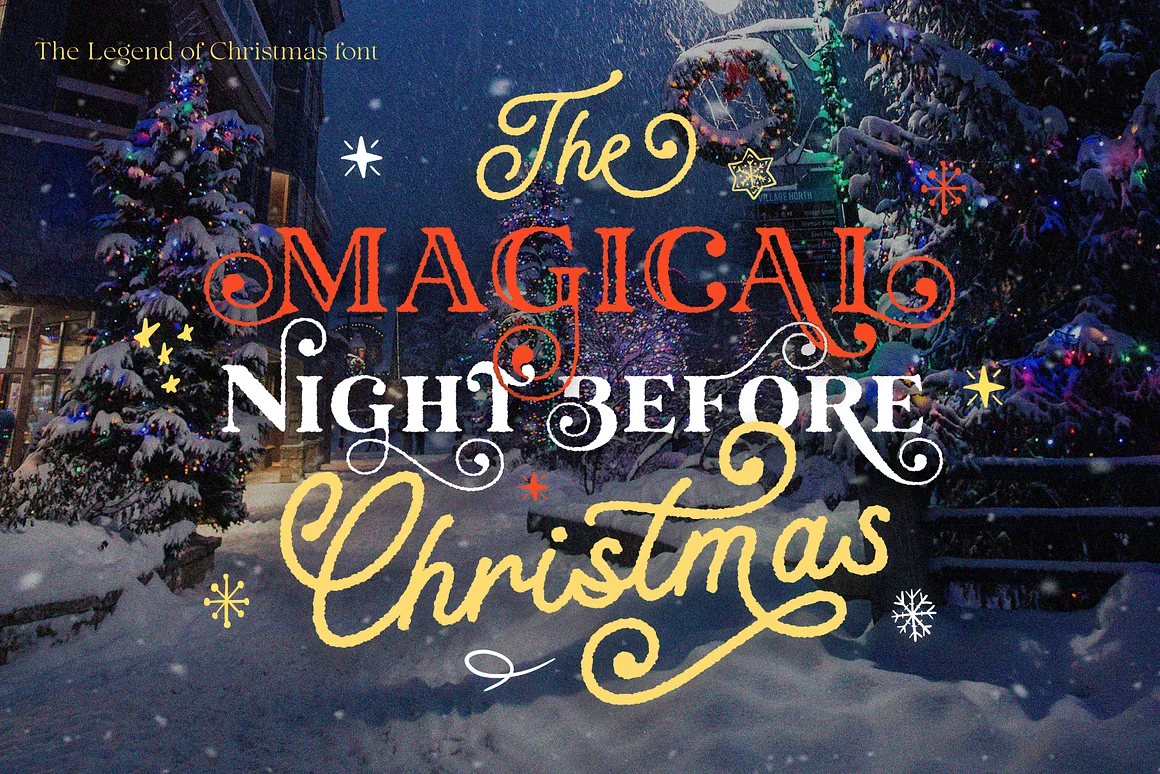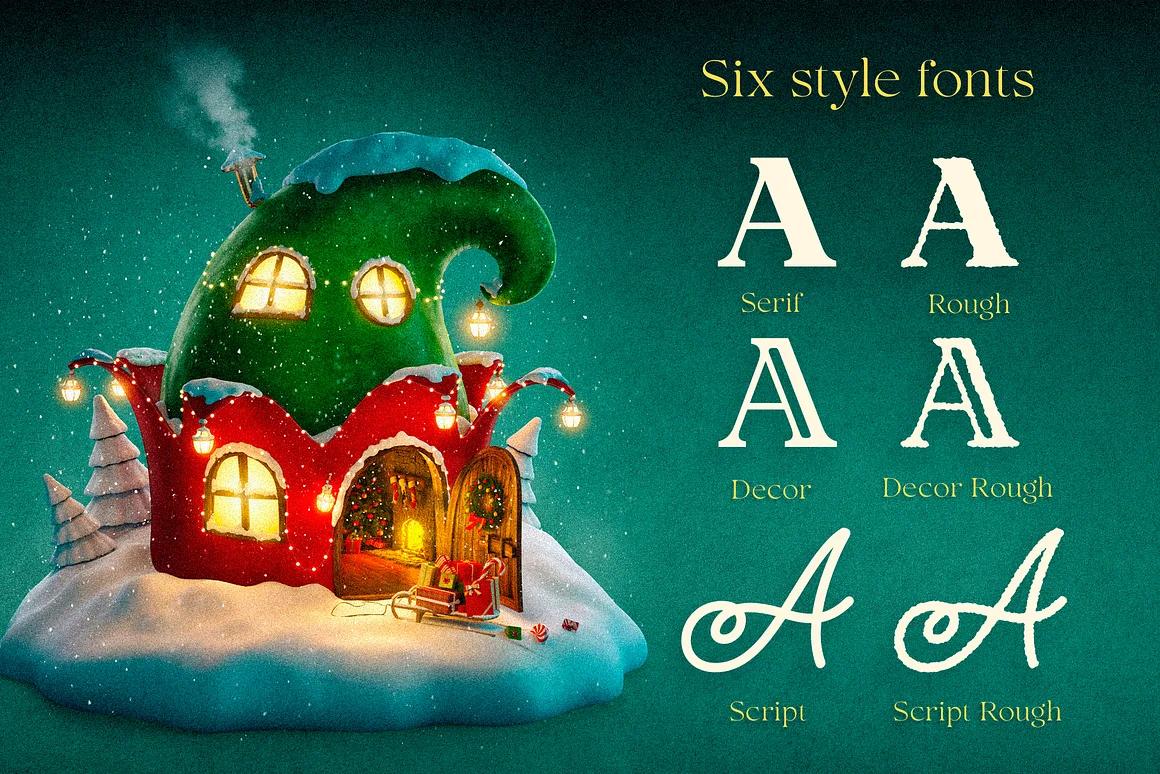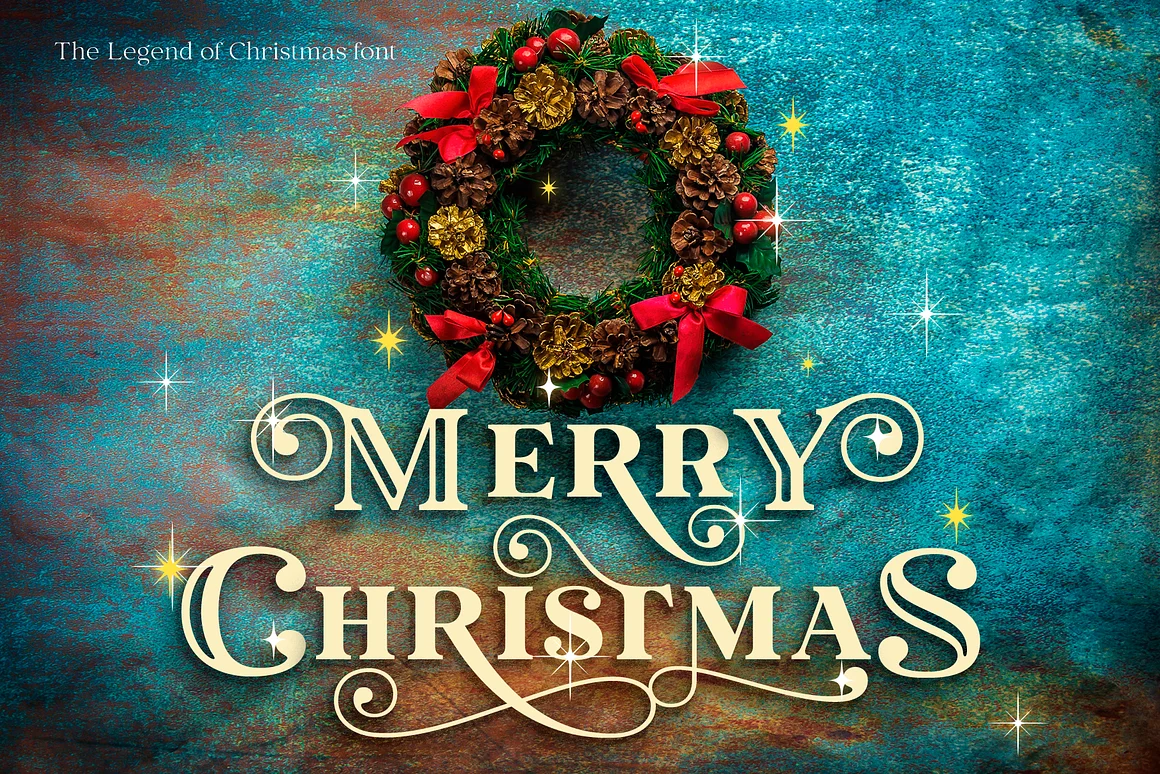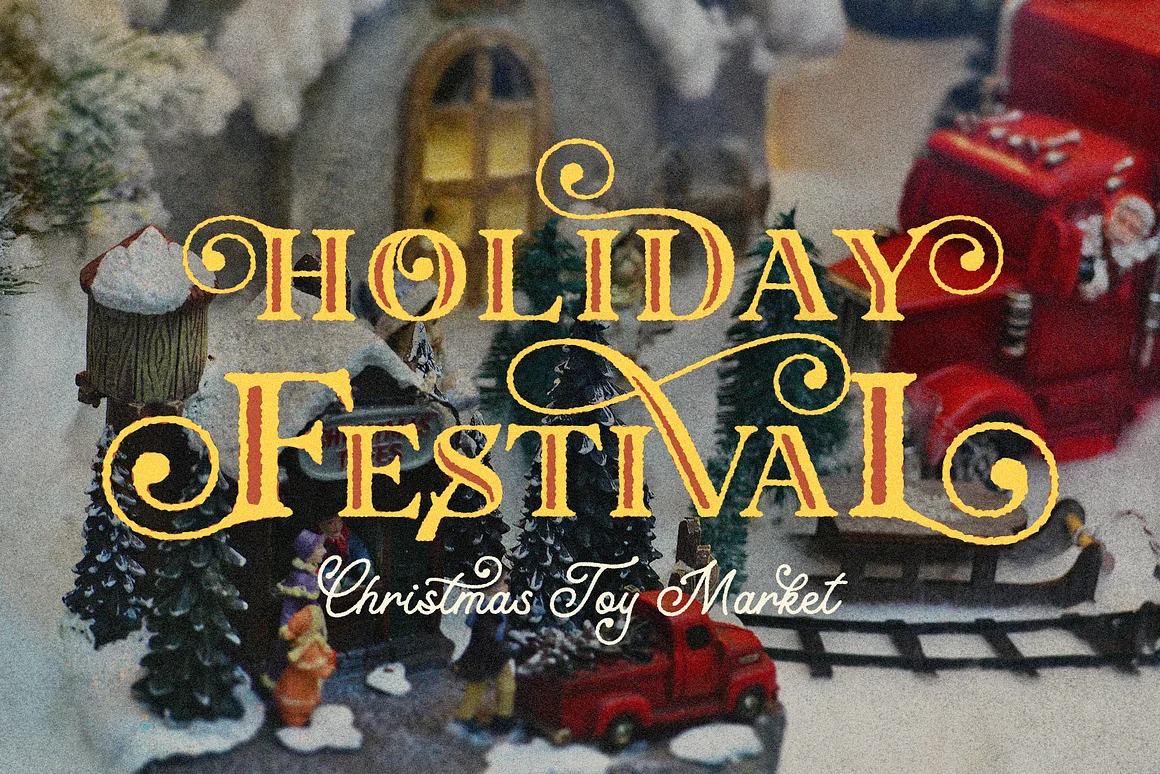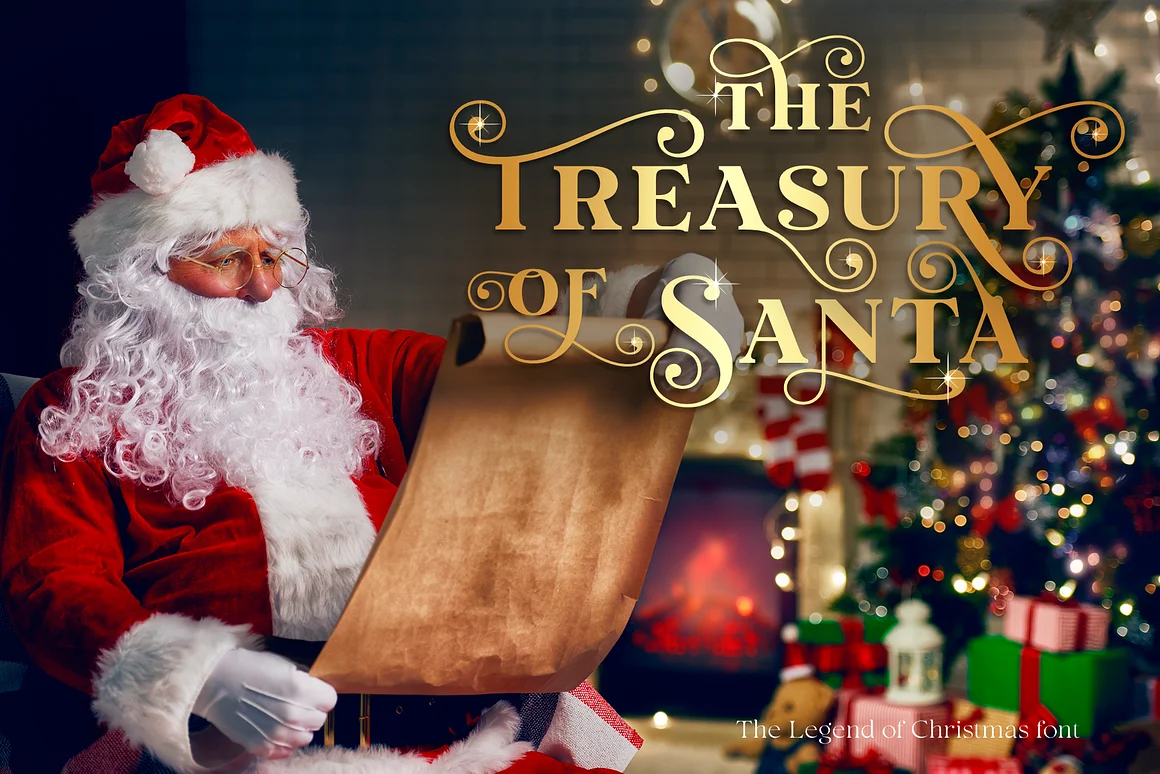
Legend of Christmas Font
This epic font is perfect for Christmas storytelling projects, holiday legend books, mythical Christmas tales, fantasy Christmas adventures, epic holiday narratives, Christmas folklore designs, legendary holiday celebrations, mystical Christmas decorations, heroic Christmas themes, and grand seasonal storytelling materials.
Legend of Christmas Font is exciting because it captures the epic grandeur and mythical storytelling tradition that surrounds Christmas through its heroically crafted letterforms that evoke the legendary tales and timeless stories that have enriched Christmas celebrations for centuries. The font features bold, stately characters with legendary proportions and mythical details that mirror the epic scope of Christmas legends, from the story of the Star of Bethlehem to the adventures of Santa Claus and his reindeer, incorporating majestic flourishes and heroic elements that create typography worthy of the greatest Christmas tales ever told. Each letter showcases the dignity and gravitas befitting legendary narratives, with powerful strokes and monumental details that transform ordinary text into epic proclamations. The design perfectly captures the sense of wonder and historical significance that makes Christmas legends so enduring and inspiring across generations and cultures.
The Legend of Christmas Font family includes epic style variations: Regular, Bold, Light, Heroic, and Mythical versions. The collection features special legendary elements including crown flourishes, star accents, epic scroll details, and mythical ornaments. Additional components include legendary borders, epic frames, heroic decorations, and majestic ornamental designs that enhance the font's legend of Christmas appeal and create cohesive epic holiday themes.
Storytellers and epic celebration planners will find Legend of Christmas Font to be an invaluable resource for creating grand holiday communications that honor the legendary status and mythical significance of Christmas traditions. This majestically crafted font transforms ordinary Christmas messaging into legendary expressions that convey the epic scope and timeless importance of Christmas stories that have inspired humanity for generations.
The typeface includes comprehensive character support with legendary styling that maintains excellent readability while conveying the epic grandeur and mythical significance of Christmas legends. The font's heroic design ensures powerful results across both intimate storytelling applications and grand-scale legendary celebrations.
Perfect for authors, epic event planners, legendary Christmas celebrations, and grand holiday storytelling, this font delivers monumental visual impact that communicates legend, epic grandeur, and the timeless mythical power of Christmas stories that continue to inspire wonder and belief in the magical legends that make Christmas the most legendary celebration in human history.